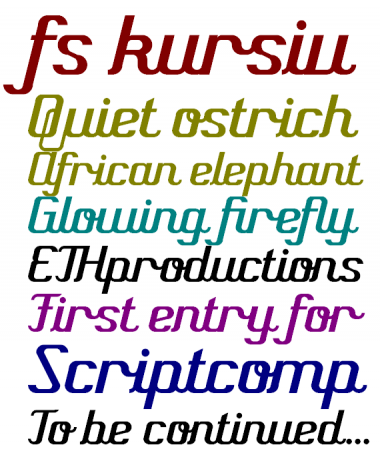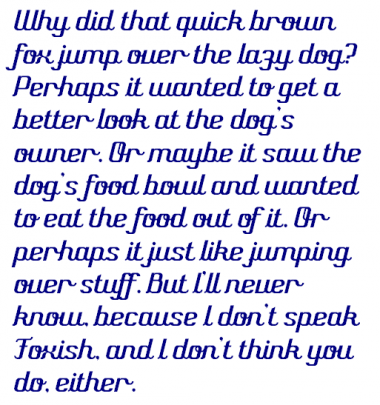
Cursive and italic - well handled. 10/10
Great start.
You missed the second 'n' in "continued"...Oops!
@aphoria: *slaps forehead* Why didn't I see that? Thanks for pointing it out, I've fixed it.
This is nice. Good luck :)
Having made some fonts like Archtalic, Antillic, I have an understanding of how difficult it can get with italics and fontstructor. What you've achieved here isn't just italics, but also the right way of connecting them. A definite 10!
Nice flow and some good details.
This is a "script"! My 10 & my votes 2U!
@architaraz: Thank you so much! Yes, this was pretty difficult, but once I got the hang of it, it was easier. :-)
I've added numbers and accents, and I'll finish Basic Latin soon.
I also was surprised by how well this works in a paragraph setting while I was messing around on MS Word. Here's a sample paragraph:
Great work, and I love the first sample. Nice!
I've finished Basic Latin and I'm currently working on More Latin.
@winty5: Thanks! I like the first sample too. :)
Congratulations! FontStruct Staff have deemed your FontStruction worthy of special mention. “fs kursiv” is now a Top Pick.
In less than a week, all three of my entries have been chosen as Top Picks--thanks so much, FS Staff!!